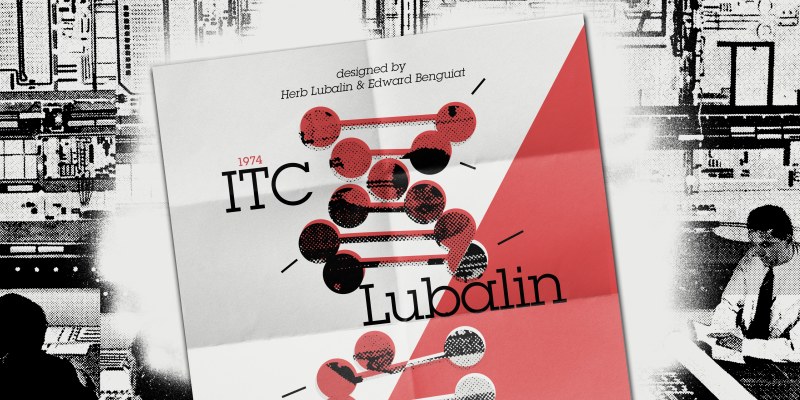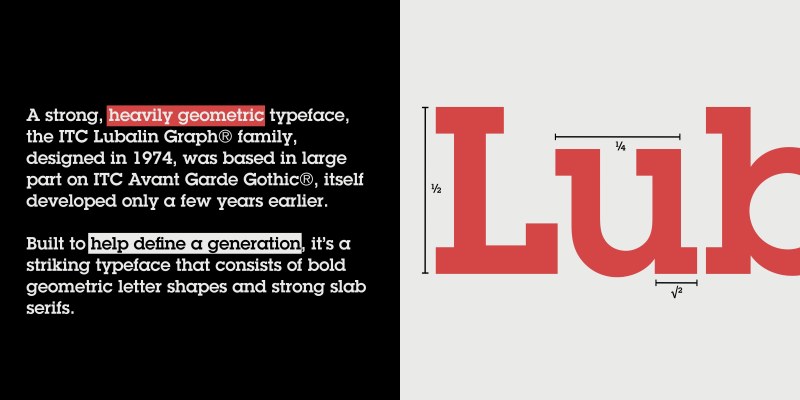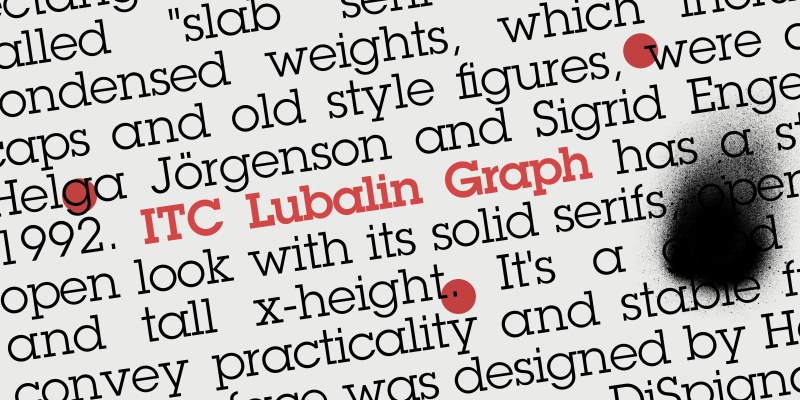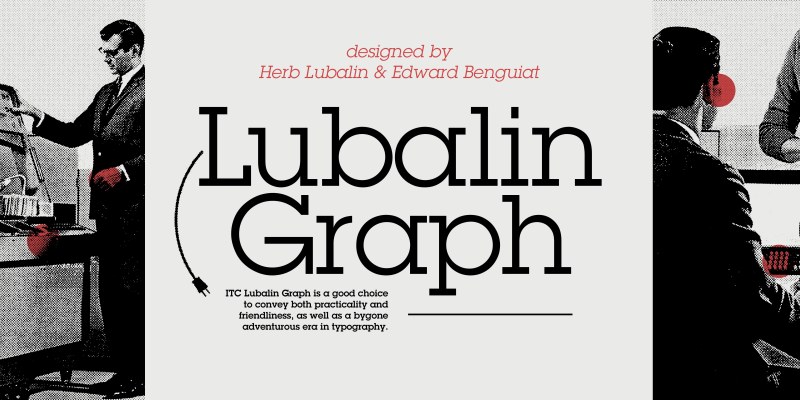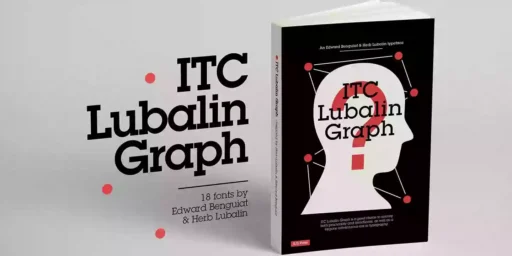
ITC Lubalin Graph Font
ITC Lubalin Graph is a widely known font due to its mix of geometrical shapes and typographic innovation. Designed by Herb Lubalin and drawn by Tony DiSpigna and Joe Sundwall,The International Typeface Corporation (ITC) introduced it in 1974.
Herb Lubalin is a well-known American graphic artist and typographer who is the forefather of the ITC Lubalin Graph font design. Lubalin, renowned for his revolutionary and groundbreaking works, created this typeface in the 1970s, a time of trying new things and being innovative in typography. The ITC Lubalin Graph font incorporates characteristics of Lubalin’s previous work, like Avant Garde Gothic.
The 1970s was a pivotal period for the development of typography. Designers were determined to change the look of letterforms and compose attractive designs. Lubalin, with a photographic vision for details and knowledge of typography, designed a font. By the end of the process, Lubalin ITC Graph font became one of the most famous typefaces in the graphic design arena worldwide.
Lubatin differentiated his approach to designing the Lubalin Graph font. To ensure balance and gracefulness in the lines and bring modernity to typography, he actively observed the drawing process, each letter standing out from other fonts in the world. The geometric shapes and recognizable features define the ITC Lubalin Graph font as a trademark.
ITC Lubalin Graph font has a distinct identity with its buckled geometric shapes and different kinds of alphabets. The typographic appearance comes from the absolute chord between legibility and appeal in the case of many visual tasks. This fact motivates us to consider this typeface very suitable for many types of design tasks. Contrary to what most people mistakenly think, the distinctive shape of Lubalin Graph is not just about the unsually placed curves and edges, but also about its strong visual effect.
The font has distinct buckled-geometric shapes and various alphabets. The letters are composed to optimize legibility, permitting the text to stay clear and readable, even in smaller sizes or using complex design layouts. This font’s adaptability makes it enduring across different fields. The font’s adaptability makes it enduring across fields, with various weights and styles.
The ITC Lubalin Graph font adapts and fits perfectly with several different design aesthetics, making it a versatile and adaptive typeface that designers can apply to various complements. Balancing art in typographic pairing is an integral part of this brand to see the entire power of it all.
Many designers considering the Lublin Graph fonts are looking for contrasting and harmonious typefaces. In order to achieve this, they can accomplish this by mixing the typographic and angular qualities of Lubalin Graph with the more organic and humanistic features of other fonts. Alternatively, they can also consider using fonts that share the same straight-edged modernism as Lubalin Graph.
A mixture of Lubalin Graph with vernacious sans-serif typefaces like Helvetica or Univers will bring your design to the next level. Although Helvetica and the Lubalin Graph offer distinguishing character and difference, the latter is legible and neutral. This pairing enables the Lubalin Graph to enforce a vital hierarchical alignment, where the sans-serif resembles a peaceful companion.
In this case, designers would rather use Lubalin Graph with a serif typeface and a high-class style, such as Baskerville or Garamond, to create a traditional and sophisticated type of design. Because of the importance of Lubalin Graph equations and the more natural qualities of serif fonts, the creation raises a feeling of eternity and gracefulness.
The underlying principle, that is the textual harmony, contrast, and the general design intentions, is the Lubalin graph. Text style doesn’t come into play here. Finally, familiarize the world with Lubalin Graph typeface and challenge designers to discover infinite ways of mixing it with other fonts. This exceptional blend leads designers towards the peak of creativity next.Herb Lubalin and Tom Carnase designed the ITC Lubalin Graph Font in 1974. It is a geometric sans-serif character featuring a unique combination of square and rounded shapes.
The ITC Lubalin Graph typeface is a fascinating blend of modern and traditional design elements. Its subtle blending of sharp corners with curved shapes is a testament to its unique character, making it a font that intrigues and captivates in equal measure.
ITC Lubalin Graph Font has a geometric design that includes proximity between squares and rounded shapes. It is simply stylish with its clean and modern lines and sturdy and reliable structure. It is available in many weights: regular, bold, condensed, and extra-condensed.